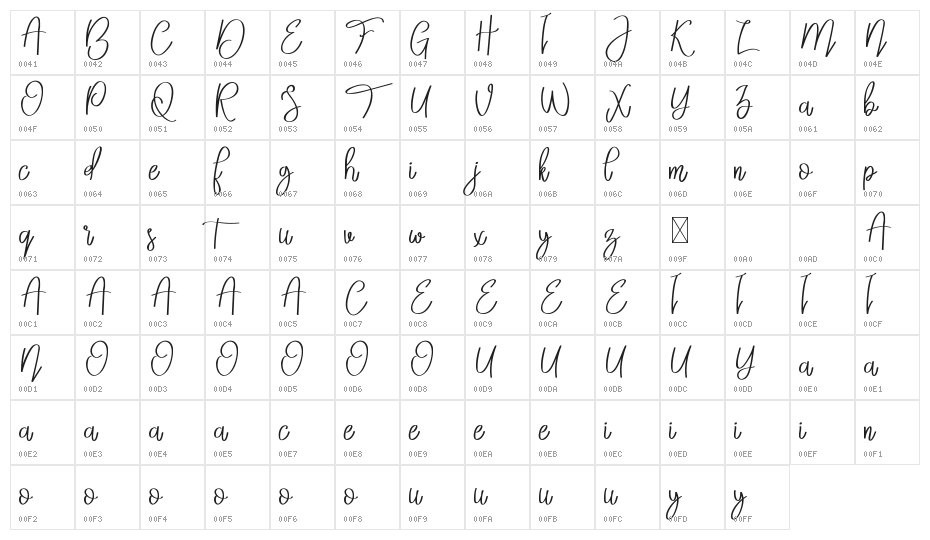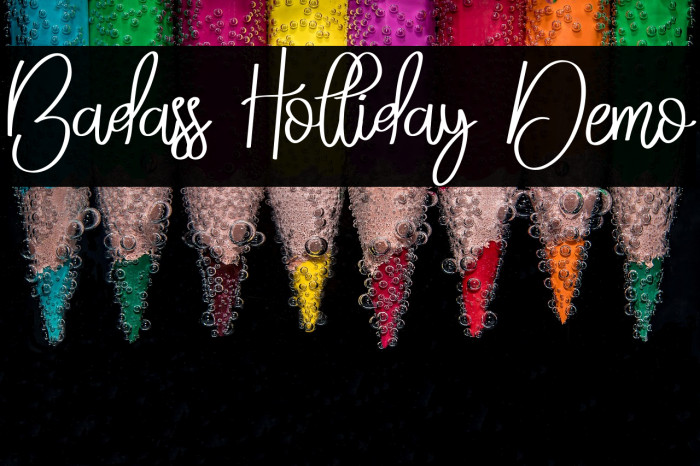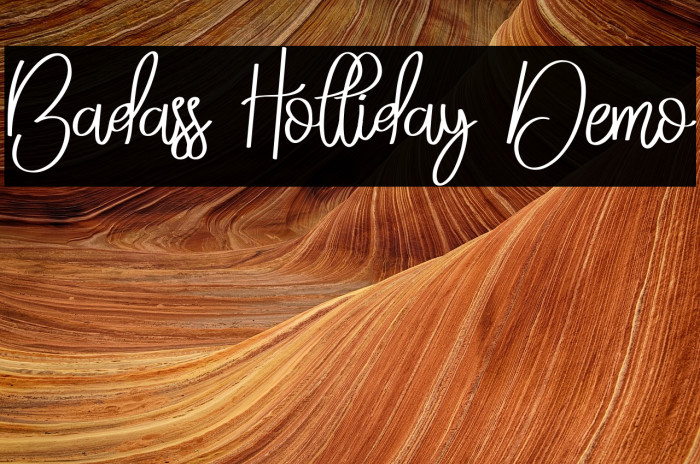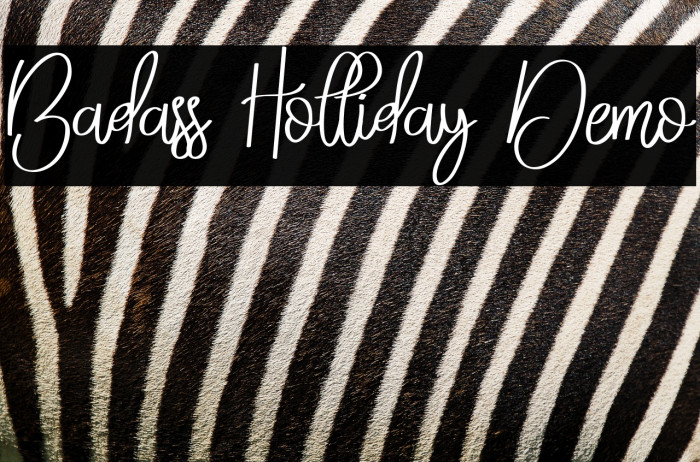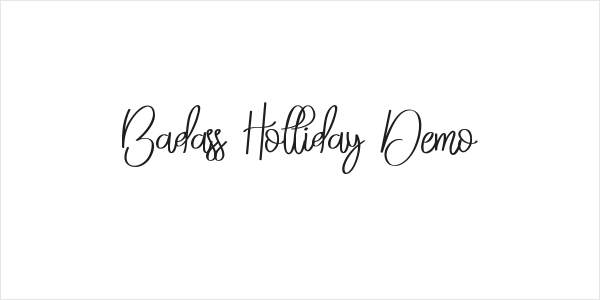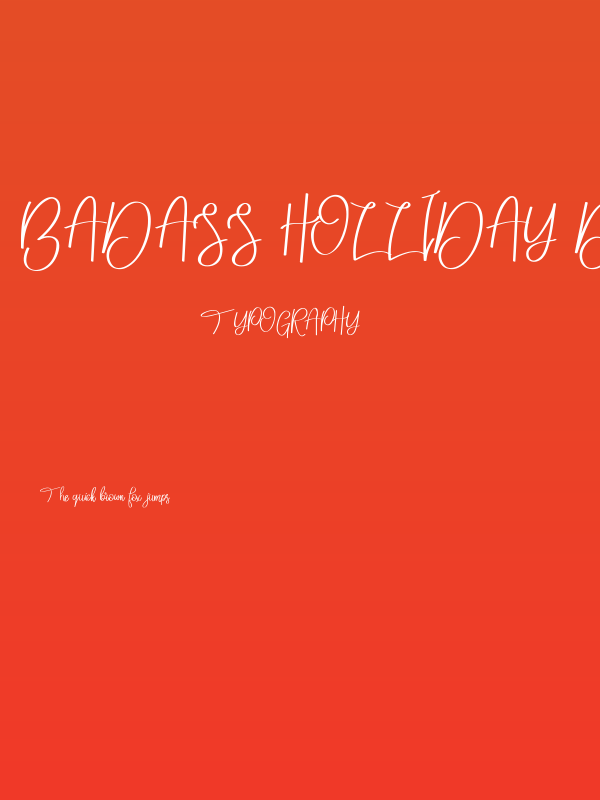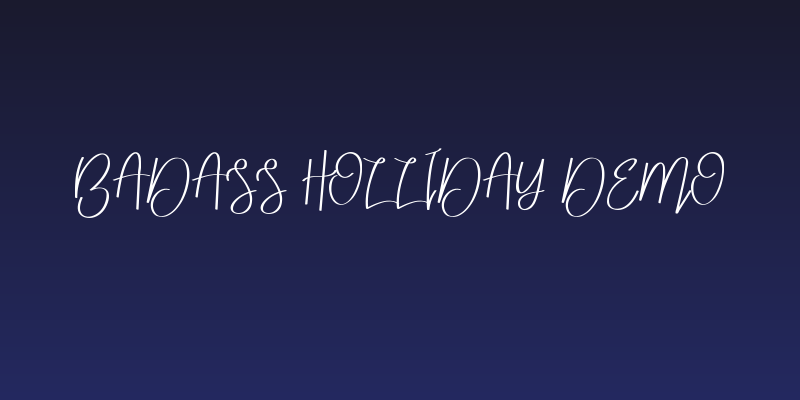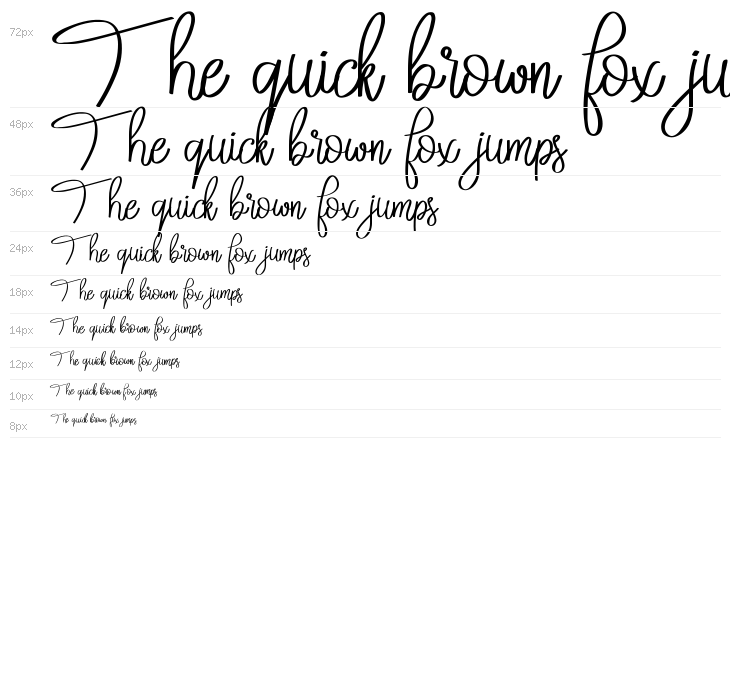
Badass Holliday Demo Font
Badass Holliday Demo Description
This font features an elegant and flowing script style, characterized by its smooth, cursive letterforms. The uppercase letters are tall and slightly slanted, with exaggerated loops and flourishes that add a sense of movement and grace. The lowercase letters maintain a consistent flow, with some letters connecting seamlessly to the next, enhancing the cursive effect. The overall appearance is sophisticated and artistic, making it suitable for creative and decorative applications. The font's playful yet refined nature makes it ideal for projects that require a touch of elegance and personality.
| Proposed Projects | Ideal for wedding invitations, greeting cards, branding, and decorative signage. |